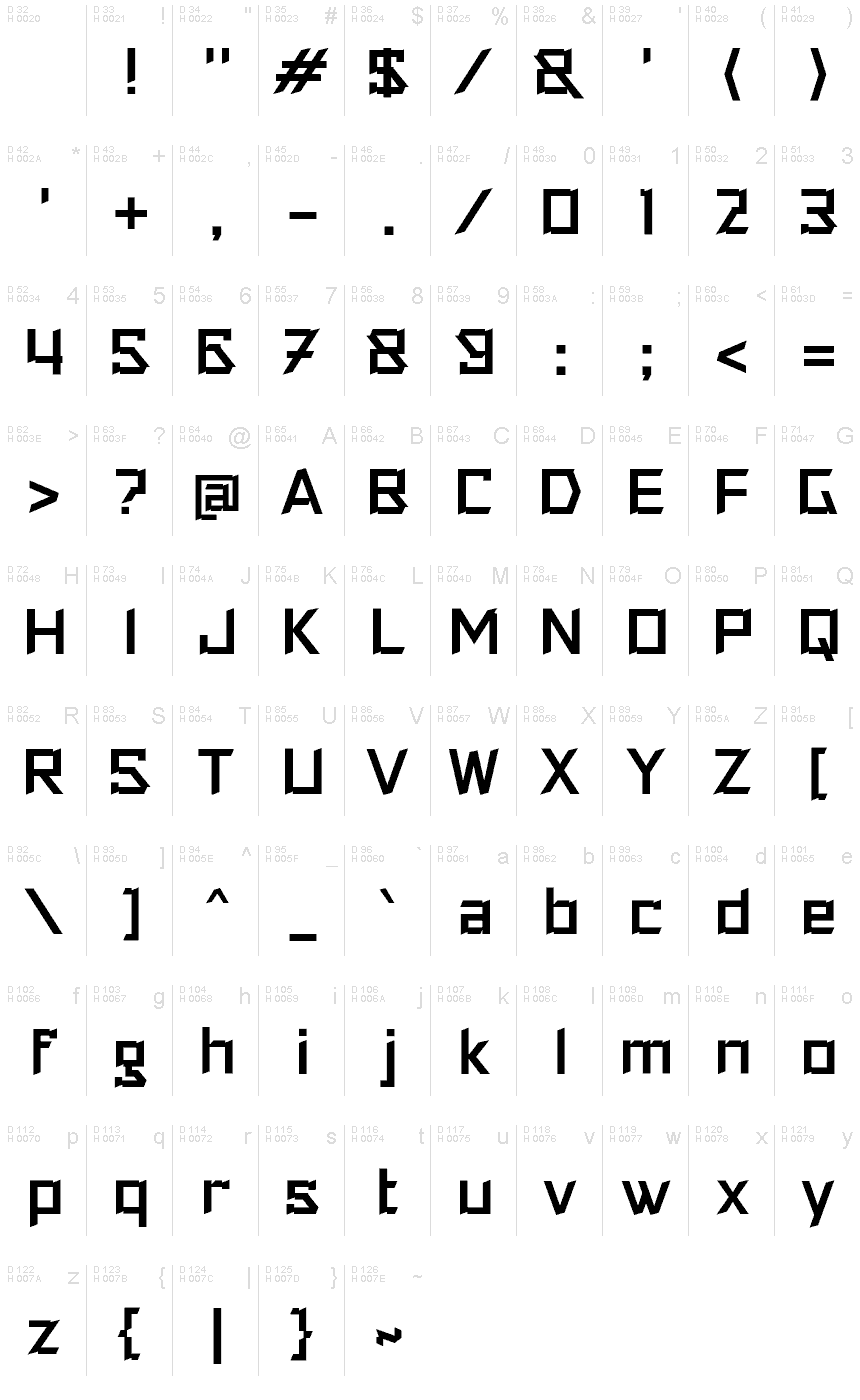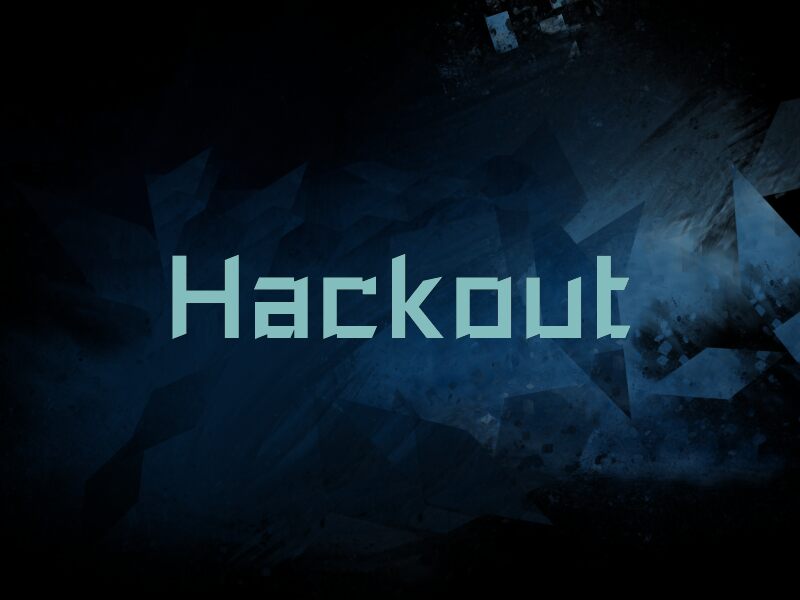
Hackout
Hackout font by wep is a modern display typeface with a strong techno vibe. Its geometric, angular features give it a technical, futuristic look that's ideal for projects seeking a sleek and innovative appearance. The design aesthetic is contemporary and strongly inspired by technological themes, making it stand out in digital applications.